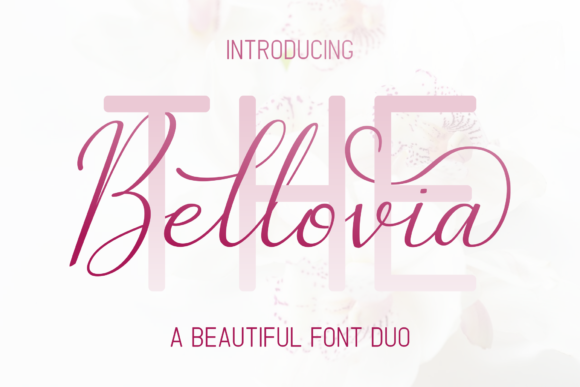
Introducing The Bellovia Duo Font – An Exclusive Typeface for Exquisite Designs!
Step into the world of elegance and refinement with The Bellovia Duo Font, a captivating font duo that will transform your designs into masterpieces. This exquisite collection features a graceful script and a sophisticated sans serif font, perfectly harmonized to bring a touch of luxury and class to your creations.
With its delicate curves and sweeping strokes, the script font exudes an aura of elegance that will captivate your audience. The rounded sans serif font, with its clean lines and modern aesthetic, provides a striking contrast that adds a touch of contemporary flair. Together, these fonts create a harmonious balance, making them the ideal choice for a wide range of design projects.
Effortlessly Versatile for Endless Creative Possibilities:
The Bellovia Duo Font is a versatile font duo that effortlessly adapts to a myriad of design needs. Whether you're crafting watermarks, designing signature logos, creating striking business cards, or adding a touch of elegance to quotes and invitations, this font duo delivers exceptional results. Its high readability ensures that your messages are conveyed clearly and effectively, leaving a lasting impression on your audience.
Embrace the Beauty of Simplicity and Readability:
The Bellovia Duo Font is designed with simplicity and readability in mind, making it a joy to use. The script font, with its carefully crafted letterforms, is easy to read, even in smaller sizes. The sans serif font, with its clean and crisp lines, provides a clear and concise foundation for your text. Together, they create a harmonious reading experience that enhances the impact of your designs.
Unlock a World of Creative Opportunities:
Unleash your creativity with The Bellovia Duo Font and explore a world of endless design possibilities. Whether you're a seasoned designer or just starting out, this font duo will empower you to create designs that captivate and inspire. Its timeless beauty transcends trends, ensuring that your creations remain relevant and striking for years to come.